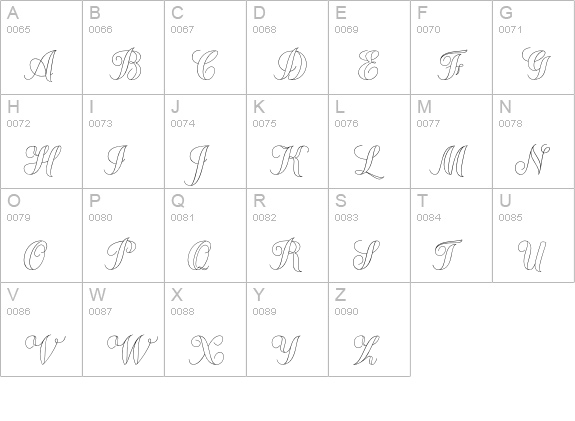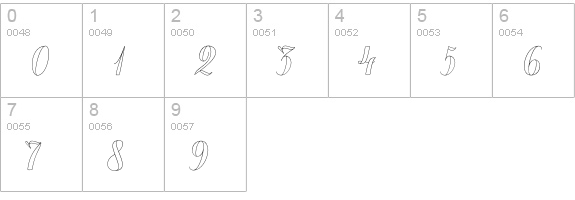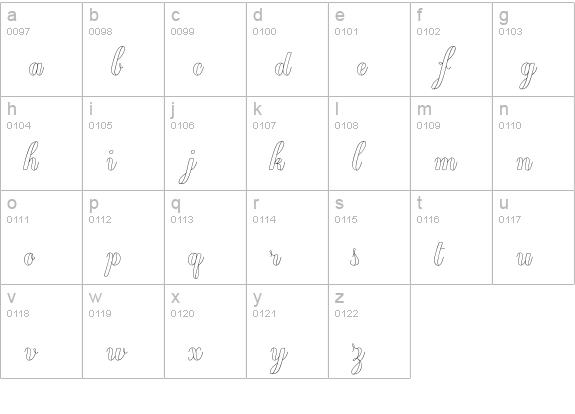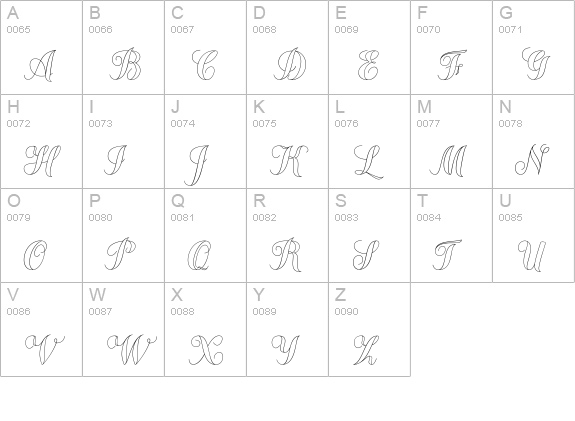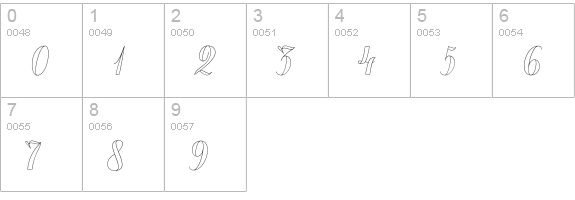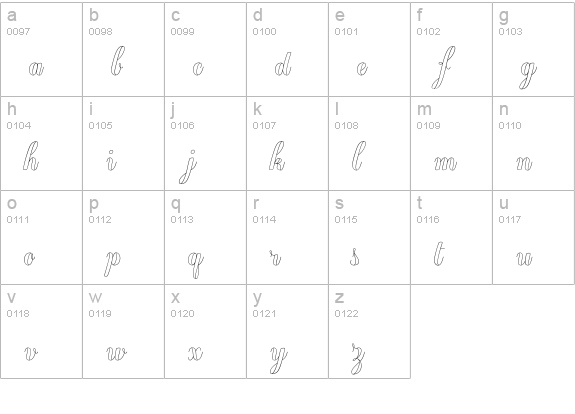
Chameleon Outline1 font is a versatile and eye-catching typeface that is sure to make a statement in any design project. Its unique outline style gives it a modern and dynamic look, perfect for adding a touch of sophistication to your work. This font is ideal for use in branding, logos, posters, and more. What makes Chameleon Outline1 font even more appealing is that it is completely free to download. You can get your hands on this stunning font at FontsMarket.com, where you can access a wide range of high-quality fonts for all your design needs. Don't miss out on the opportunity to enhance your projects with the striking Chameleon Outline1 font – download it for free today!